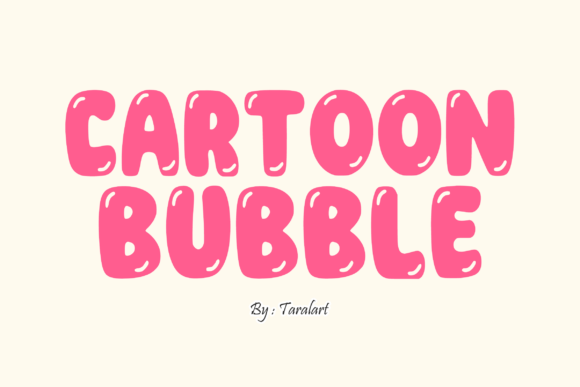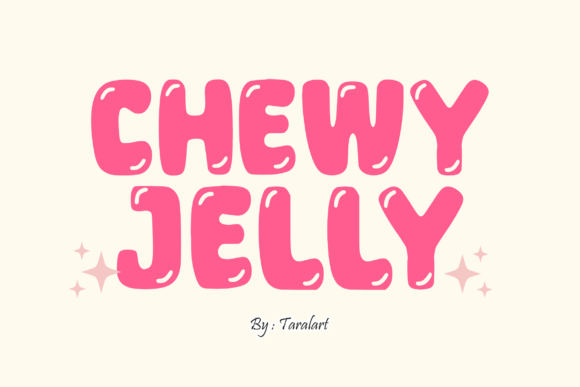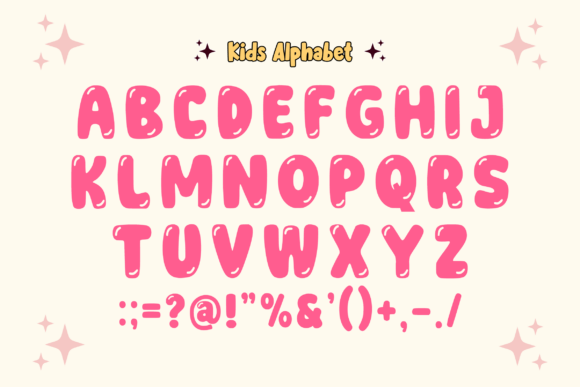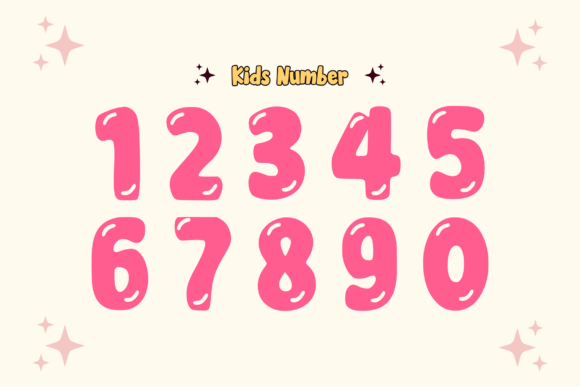
Unleash Your Creativity with the Bubble King Font
Meet the Bubble King Font, a delightful and contemporary children’s font that’s sure to bring a smile to your face. With its charming characters and effortless communication, this font is the perfect choice for animation, comic titles, and even sublimation designs. Whether you’re designing t-shirts, mugs, or tote bags, the Bubble King Font is a dream come true. As a designer, you’ll love the flexibility and versatility it offers, allowing you to unleash your creativity and bring your imagination to life.
- Unique Characteristics: The font features a unique, playful design with rounded bubbles and smooth curves, making it perfect for creating eye-catching and engaging content.
Bubble King Font Review
Overall, I’d say the Bubble King Font is a fun, playful addition to any design project. ✨ Its rounded edges and bubbly curves evoke a sense of whimsy and friendliness. I appreciate how versatile it is – it works well for everything from children’s book titles to social media graphics.
Here are some of the font’s strengths:
- ✨ Unique and eye-catching design that’s sure to grab attention
- ✨ Highly customizable, with a wide range of sizes and styles available
- ✨ Works well in both digital and print contexts
However, I do have some reservations:
- ⚠️ Can be difficult to read at smaller sizes, especially in body text
- ⚠️ May not be the best choice for formal or professional designs
- ⚠️ Limited language support – may not be suitable for multilingual projects
Despite its limitations, I think the Bubble King Font is a great choice for designers looking to add some personality to their projects. With careful use and attention to sizing, it can be a real showstopper. Just be sure to consider the context and audience before making it the centerpiece of your design.
Tips for Getting the Most Out of the Bubble King Font
Use the font in combination with bold and italic styles to create visual hierarchy and emphasis. Experiment with different font sizes and colors to create a unique and eye-catching design. Use the font in combination with graphics and shapes to create a more creative and engaging design.
The Bubble King Font is ideal for creating playful and whimsical designs, such as children’s books, party invitations, and social media graphics. It’s also suitable for creating modern and trendy designs, such as logos, branding materials, and advertising campaigns.